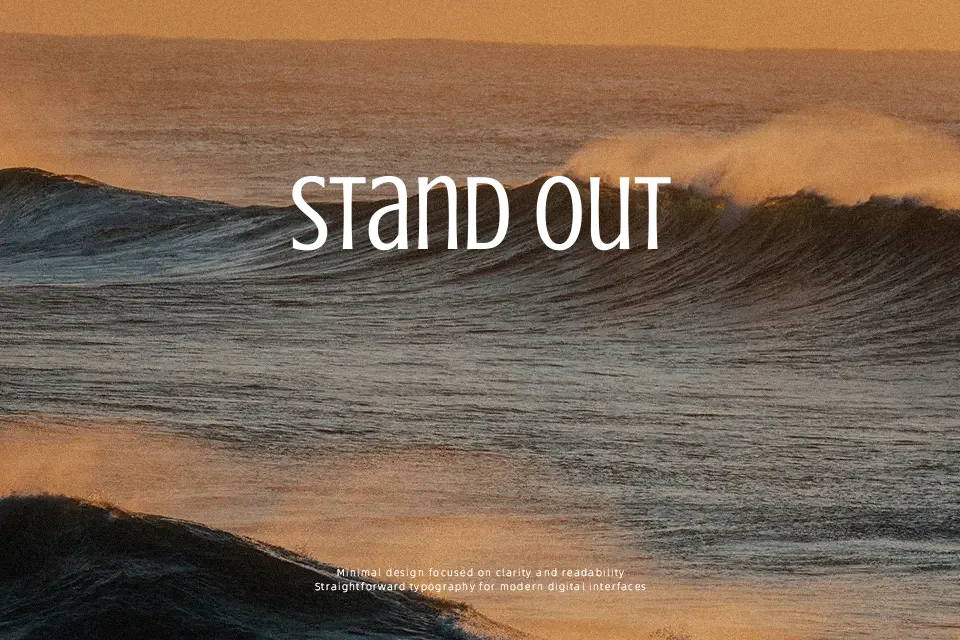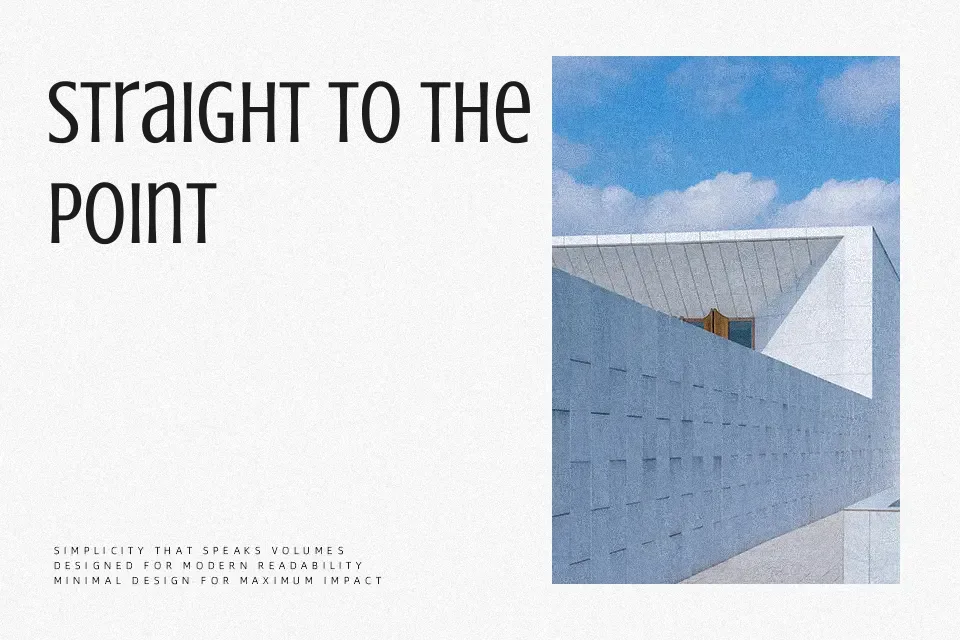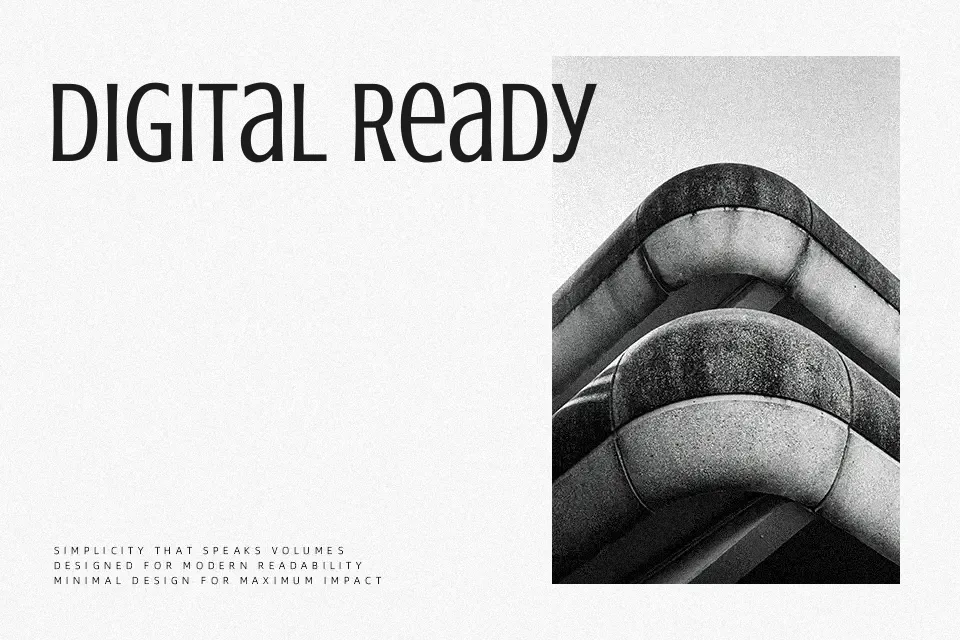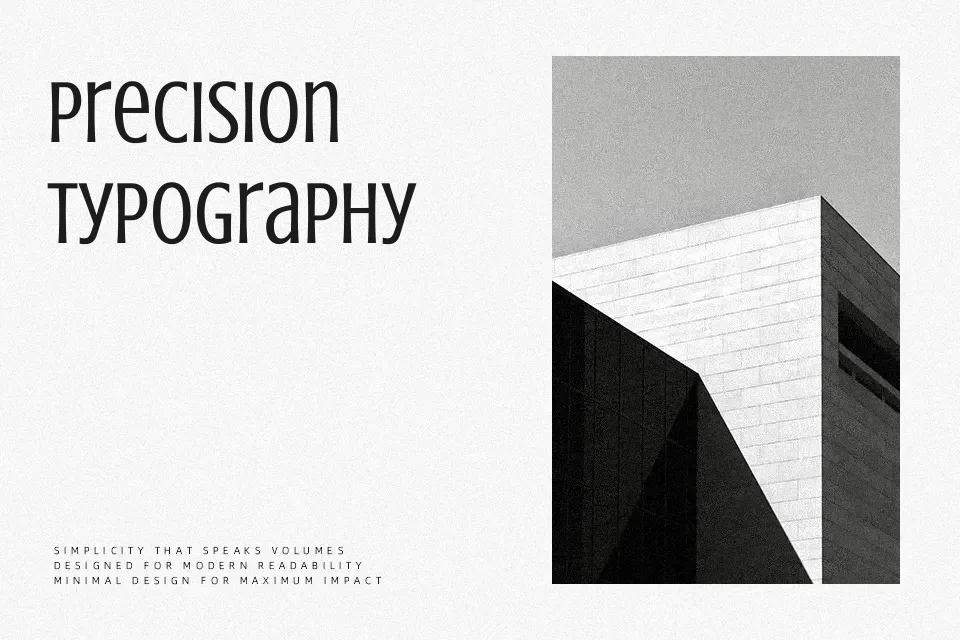
Crushed Font
Designed by Astigmatic
Crushed is a narrow display face with a tight body width, subtle tapering in the verticals, and chunky curves that keep the letters feeling lively rather than rigid. Its unicase construction and compressed proportions let you fit more words into a headline without losing legibility, so it works nicely for bold title cards, poster slogans, or YouTube thumbnail text. The overall impression is casual and expressive, somewhere between vintage sign lettering and contemporary indie branding. It has more character and noise than a standard sans serif, which helps it stand out in logos or social posts, but that same energy can become tiring in long paragraphs or serious corporate layouts. If you like compact display faces such as other condensed Google Fonts, Crushed gives you a rougher, more playful alternative.
streetwear or indie branding
social media graphics
short text accents on posters
long-form reading
dense UI copy
highly minimal, neutral branding
Perfect for branding, headline, and logo, with a artistic and condensed style.